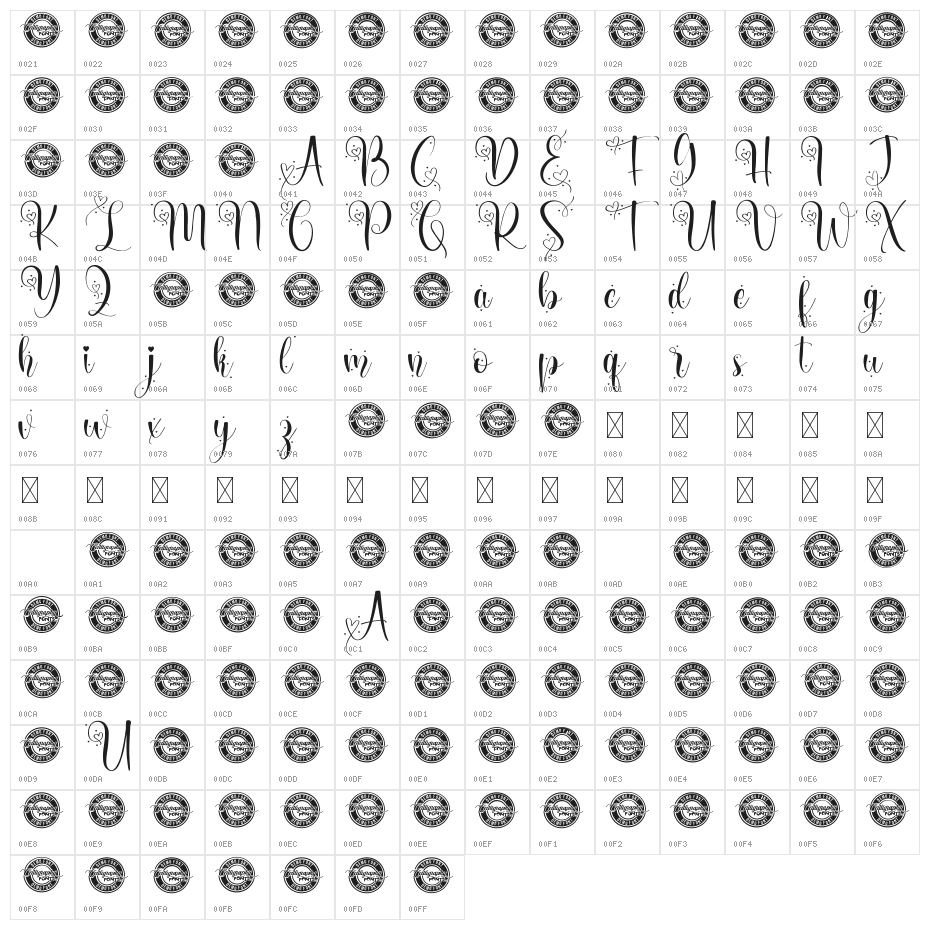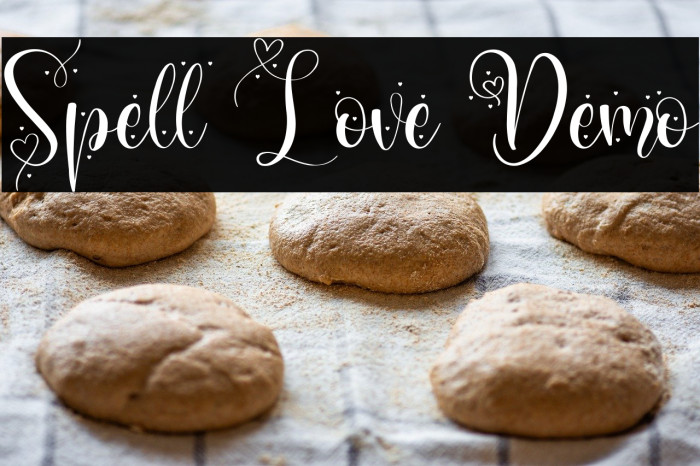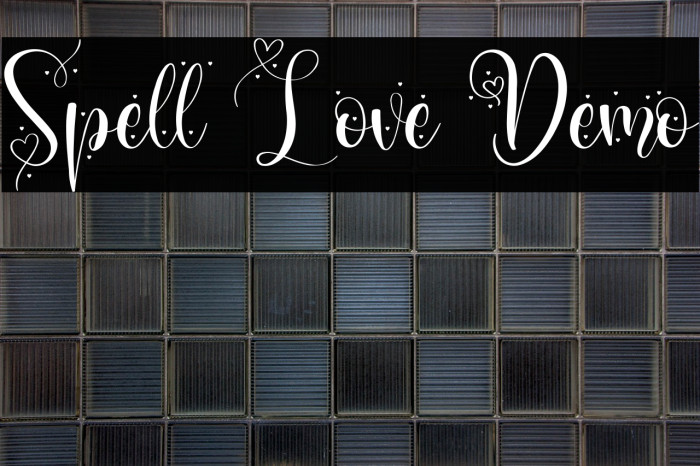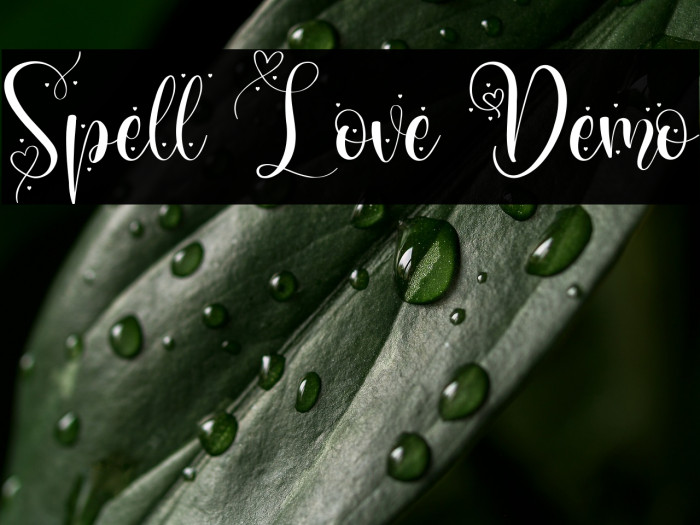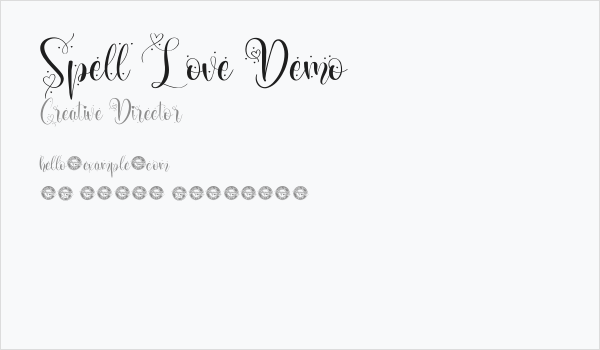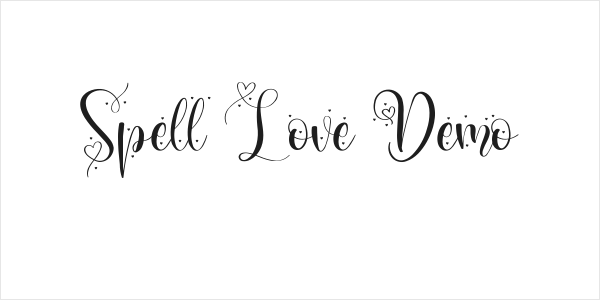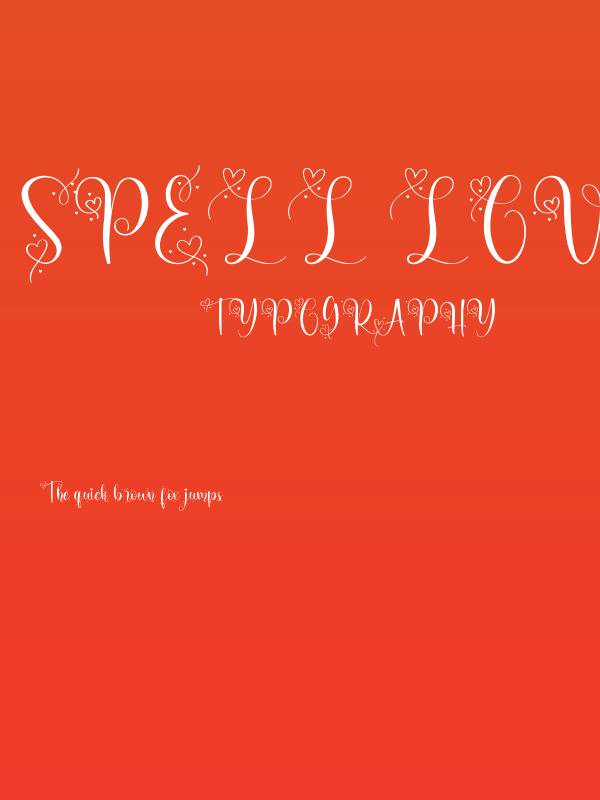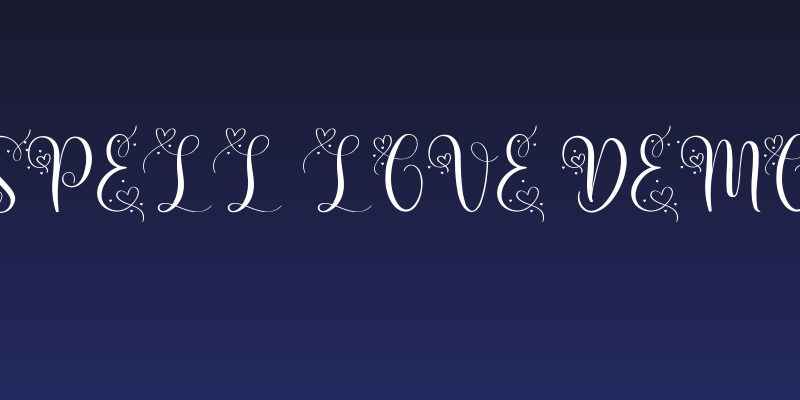
Spell Love Demo Font
Spell Love Demo Description
This elegant and whimsical font features a script style with decorative elements such as hearts and swirls integrated into the letterforms. The uppercase letters are tall and slender, with delicate flourishes that add a romantic touch. The lowercase letters maintain a consistent flow, with some characters featuring unique heart-shaped accents. The numbers and special characters follow the same decorative theme, making this font ideal for creating a cohesive and charming design. The overall appearance is playful yet sophisticated, perfect for projects that require a touch of elegance and creativity.